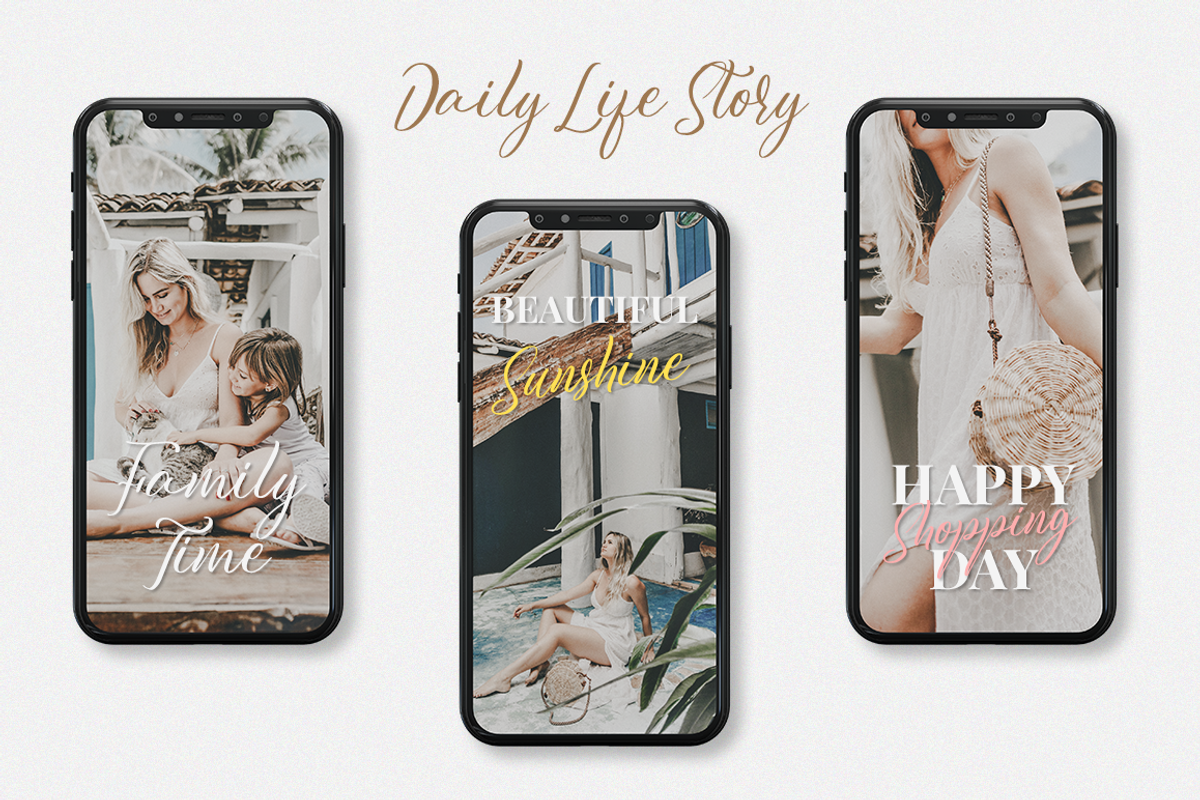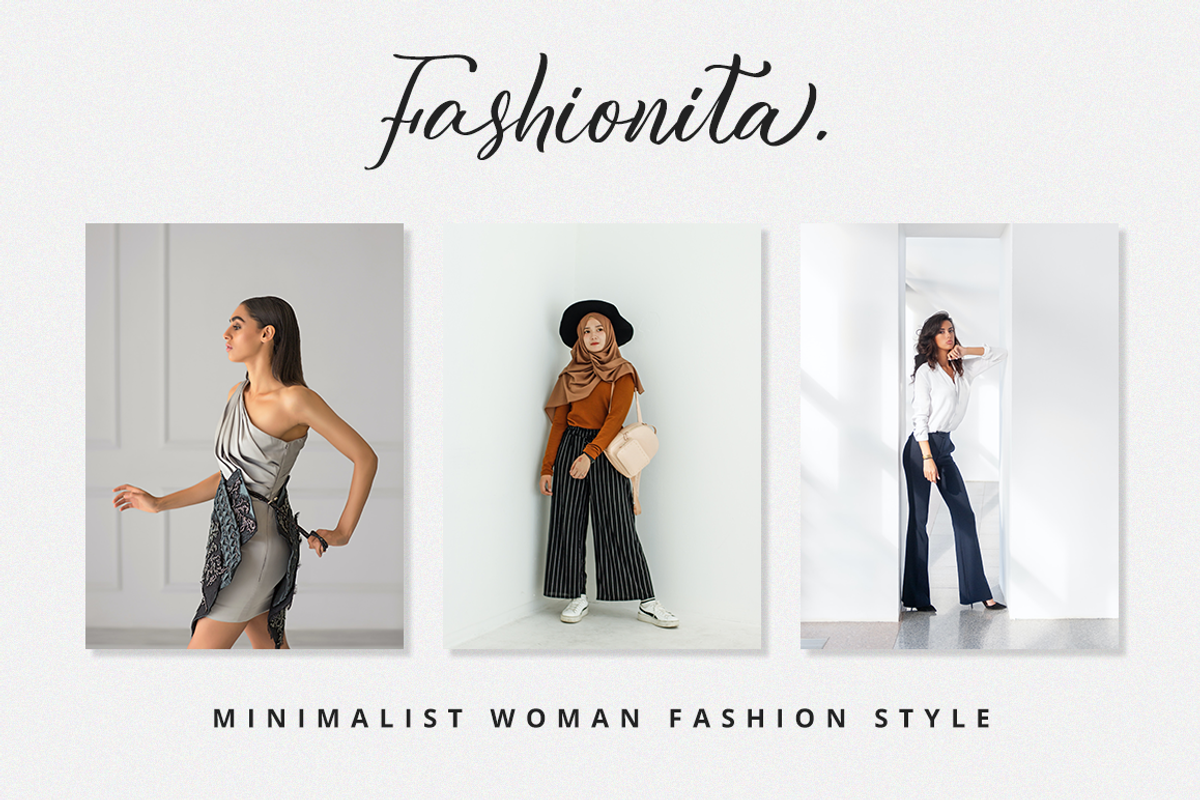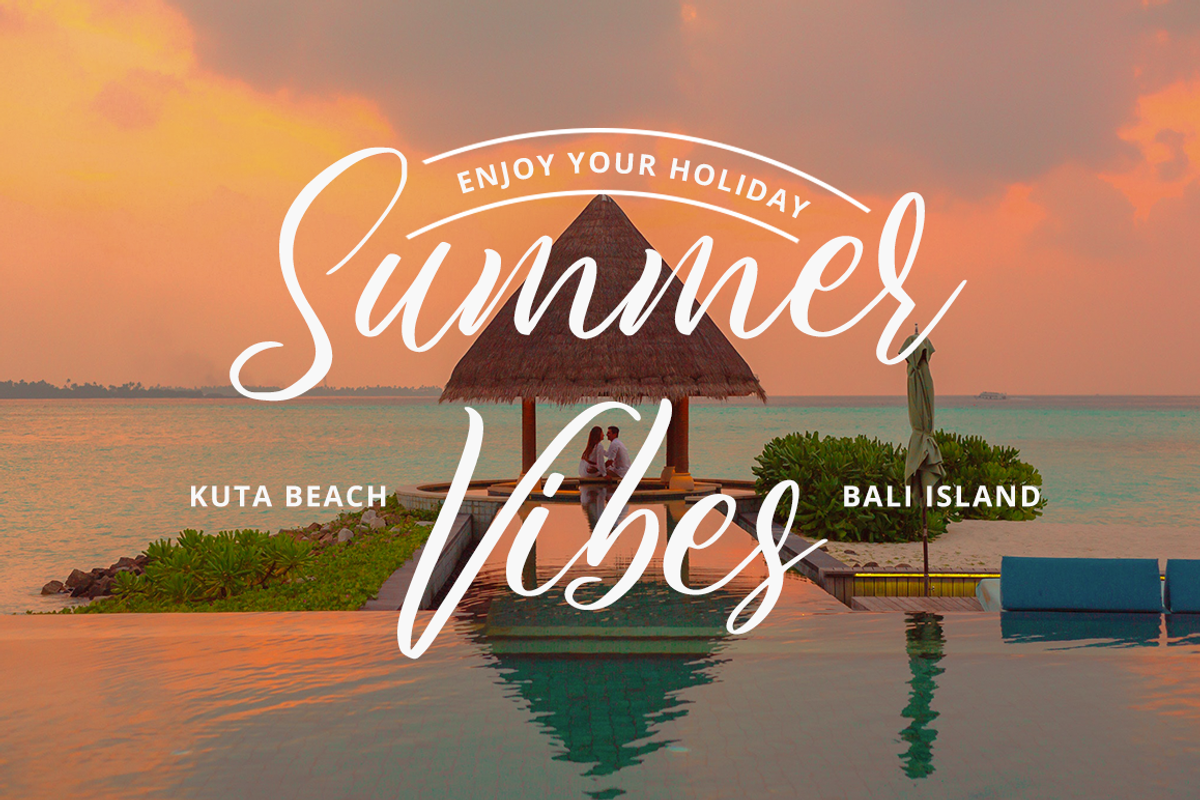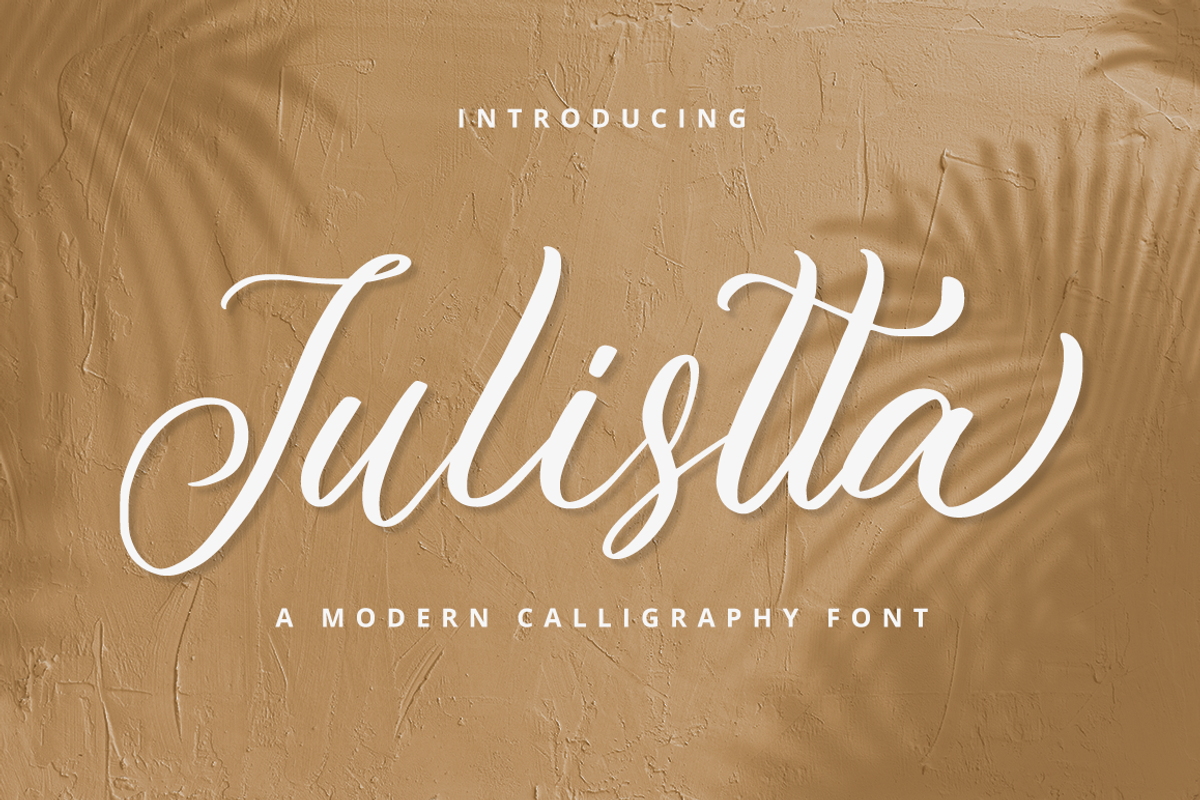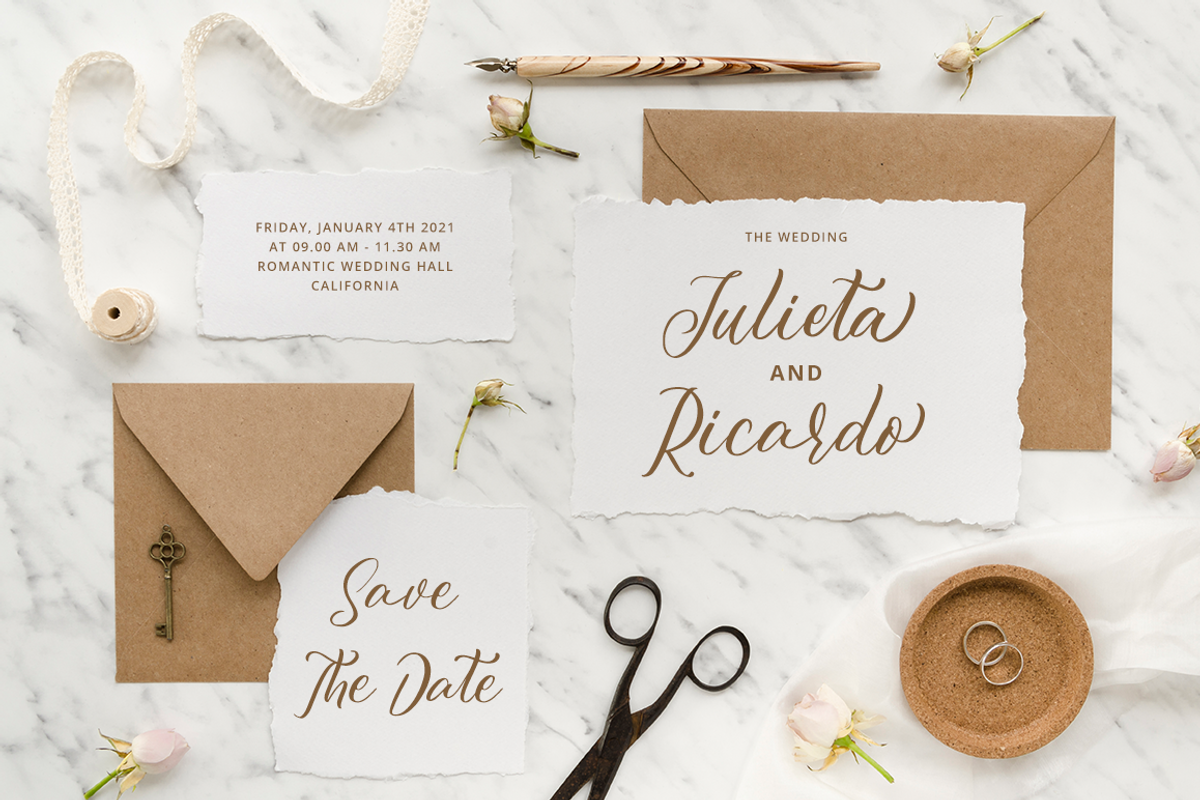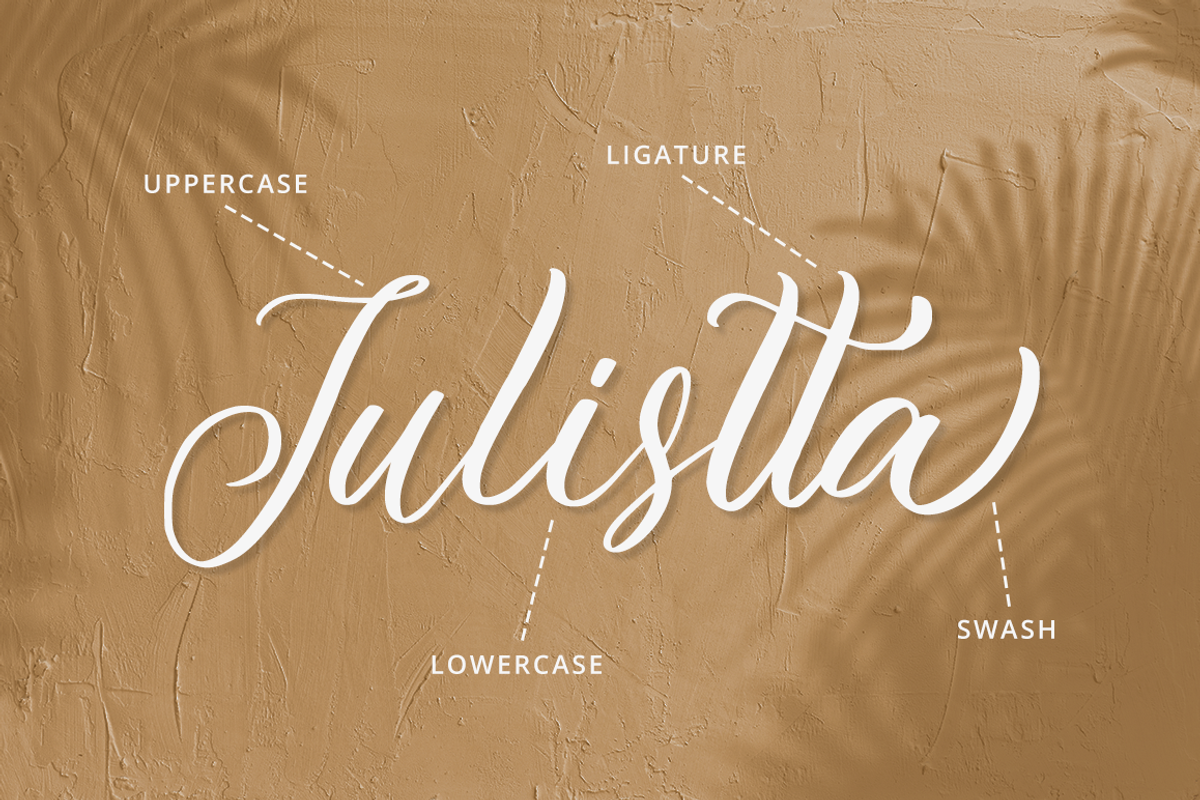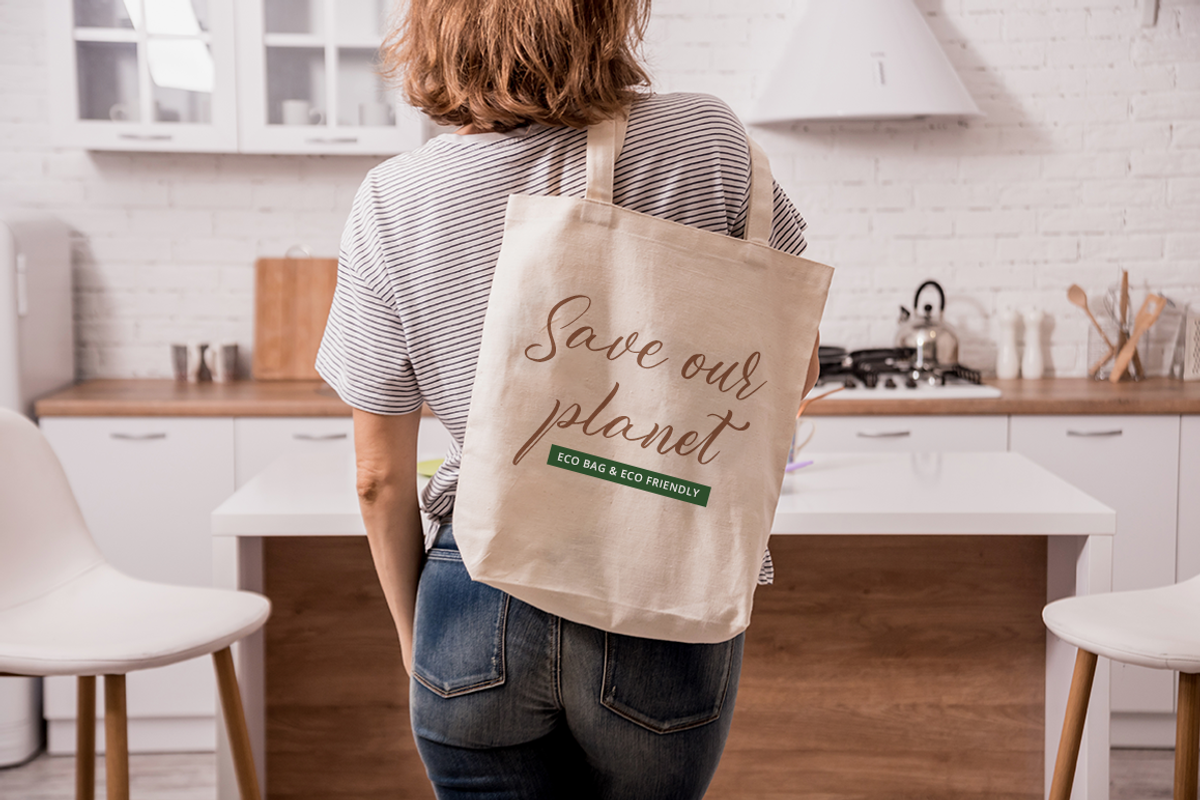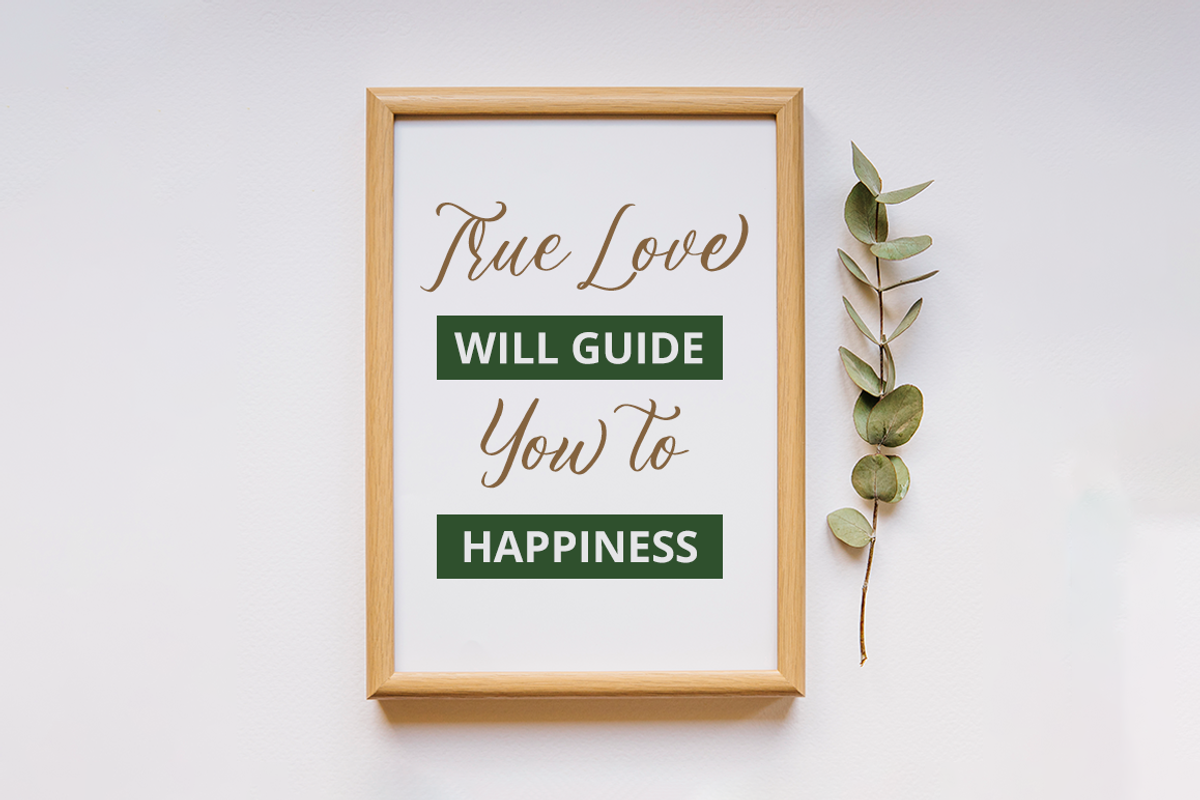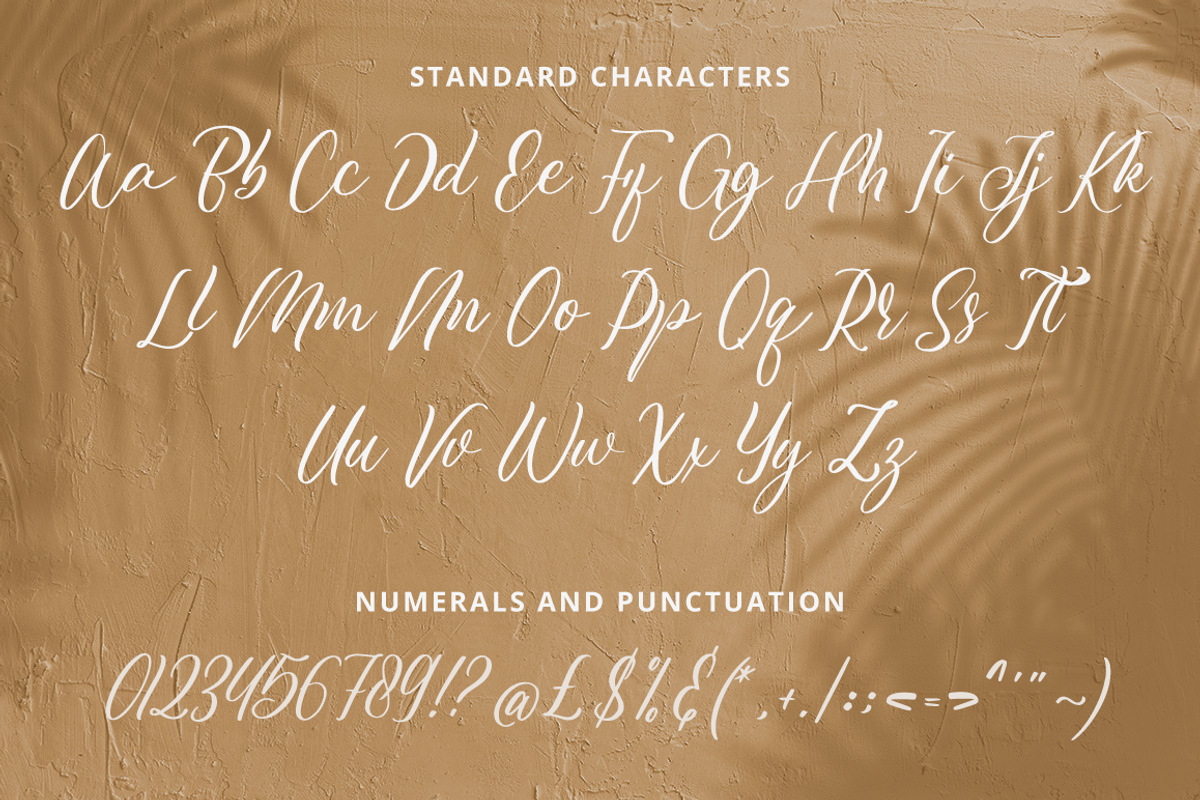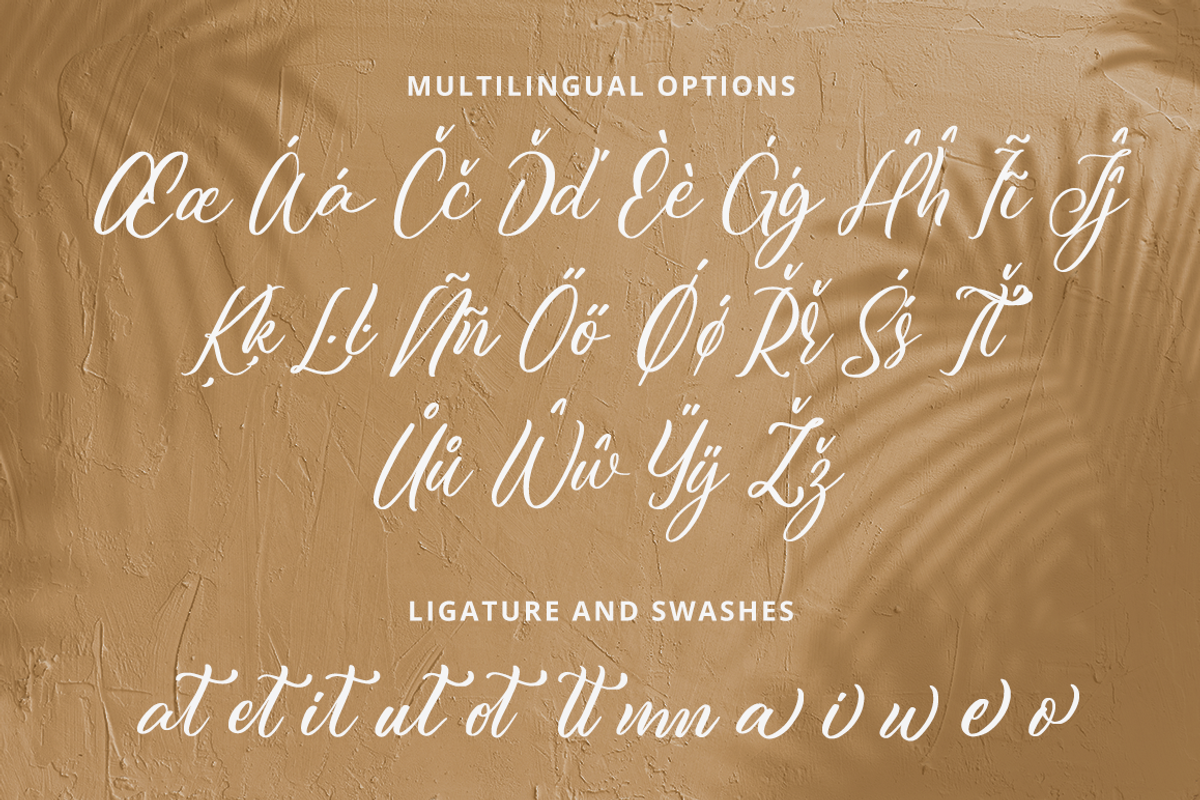
Julistta a Modern Calligraphy Font
Julistta is a beautiful and refined script font. It has a classy, elegant and modern look that can be used for logos, branding, invitations, stationery, wedding designs, social media posts, and much more!